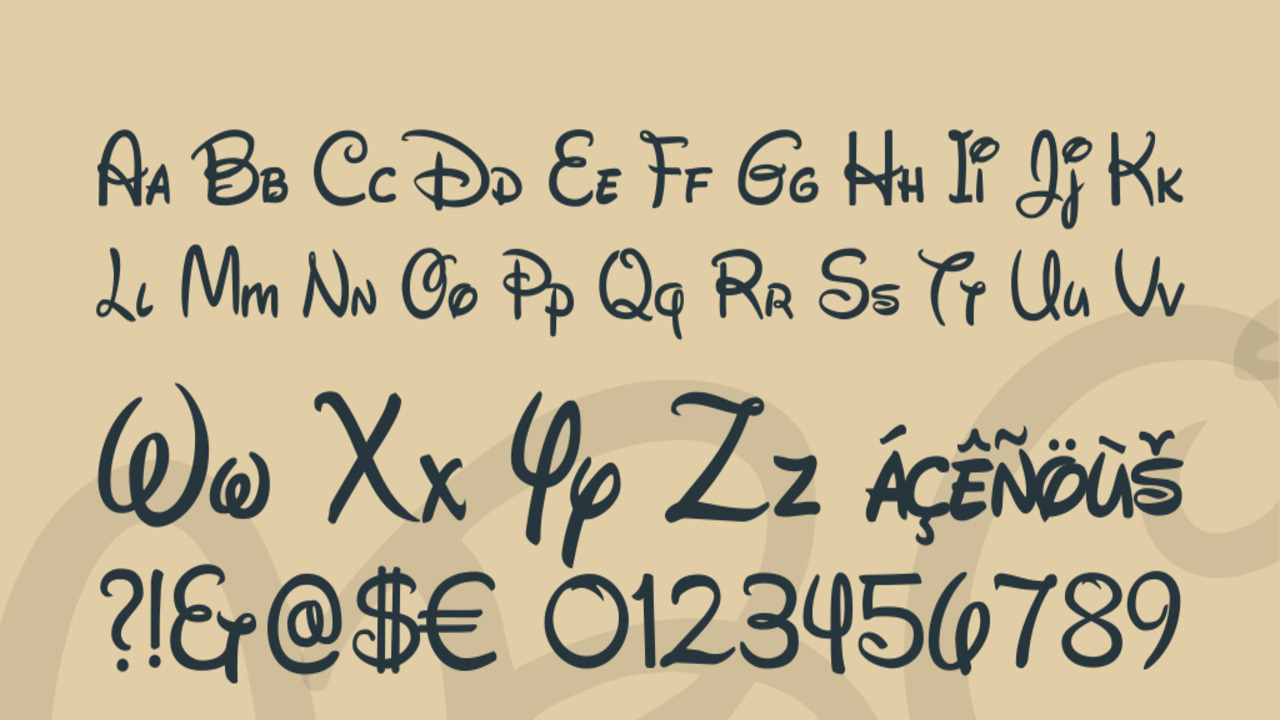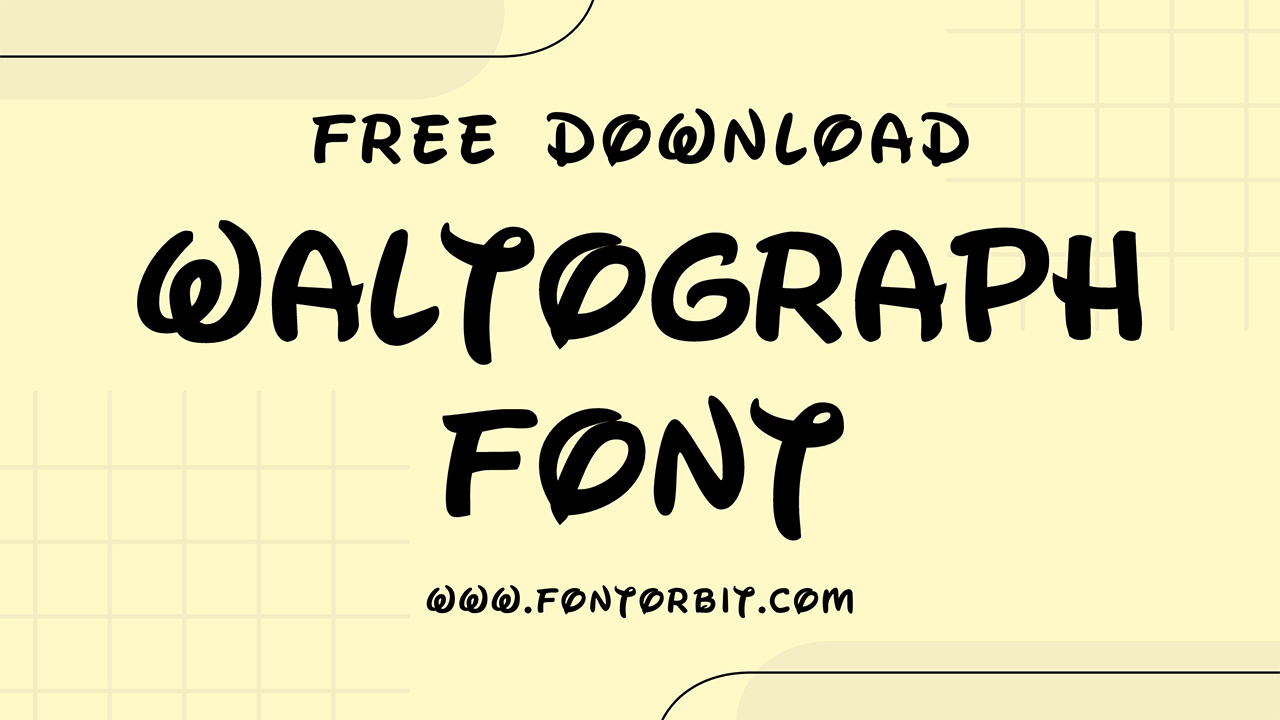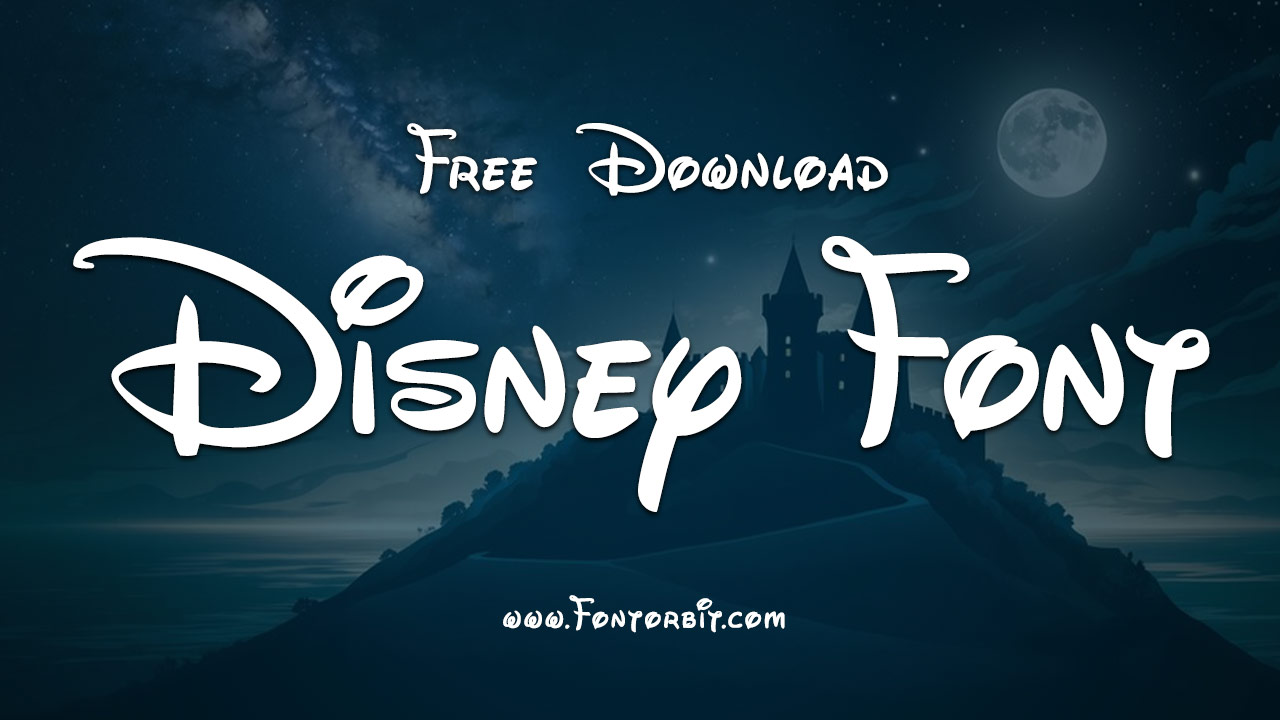
Meet Waltograph Font, an elegant script typeface inspired by Disney’s classic logos and hand-titled artwork. Designed by Justin Callaghan, this font captures the whimsical and nostalgic charm of the Disney logotype, bringing a touch of classic Disney magic to modern projects. This Script style font has 136 glyphs / 231 characters. Mimics the classic Disney script with flowing, elegant letterforms.
Waltograph Font is frequently used in designs that celebrate Disney’s iconic branding. It can be seen in fan art, merchandise, and themed invitations, reflecting the classic Disney script’s whimsical and nostalgic style. Most people seek a nostalgic and elegant script that evokes classic Disney magic, perfect for adding a whimsical touch to their designs.
Waltograph Font is a charming script typeface that brings Disney magic to any design. Ideal for nostalgic projects, fan art, and themed invitations, this font captures the whimsical elegance of classic Disney branding. Whether celebrating Disney or adding a magical touch to your designs, Waltograph Font is a perfect choice.
1.What Are The Limitations Of Using Waltograph Font In Design?
Its ornate script style may not work well for professional or contemporary designs and may be unsuitable for small text or detailed graphics.
3.What Are The Differences Between The Waltograph Font And Other Similar Fonts?
Waltograph Font mimics Disney’s classic script with whimsical, flowing letterforms, while similar fonts may vary in style, formality, and design focus, lacking Disney’s specific nostalgic charm.
4.What Are The International Language Support Capabilities Of The Waltograph Font?
Waltograph Font primarily supports basic Latin characters and may have limited international language support, lacking extensive coverage for special characters or non-Latin scripts.
5.What Are The Guidelines For Using The Waltograph Font In Print Media?
Use Waltograph Font for whimsical, nostalgic themes. Ensure legibility by avoiding small sizes, and test print quality to maintain readability and aesthetic appeal in various formats.
7.What Are The Best Color Combinations To Use With The Waltograph Font?
Best color combinations include classic Disney colors like red, yellow, and blue, or pastel shades, which enhance the nostalgic and whimsical appeal of the Waltograph Font.